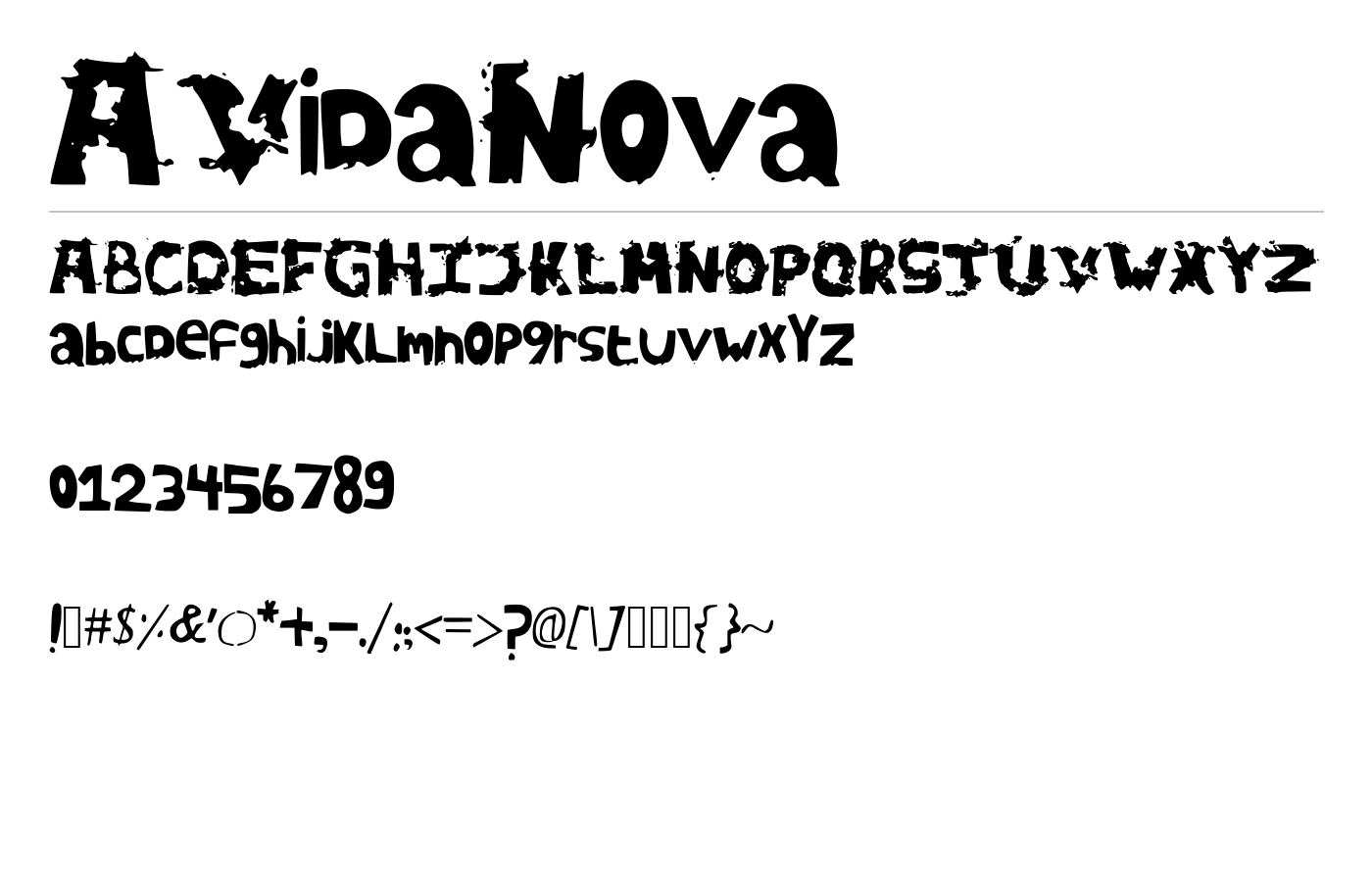
AVidaNova is a bold, playful sans serif font with a distressed, grunge texture that gives it a unique, handmade feel. Its irregular shapes and heavy weight make it ideal for eye-catching headlines or creative projects that want to convey an edgy, adventurous, or informal vibe. This font works best in posters, logos, and packaging where a strong, artistic character is desired.
AVidaNova Font
About AVidaNova Font